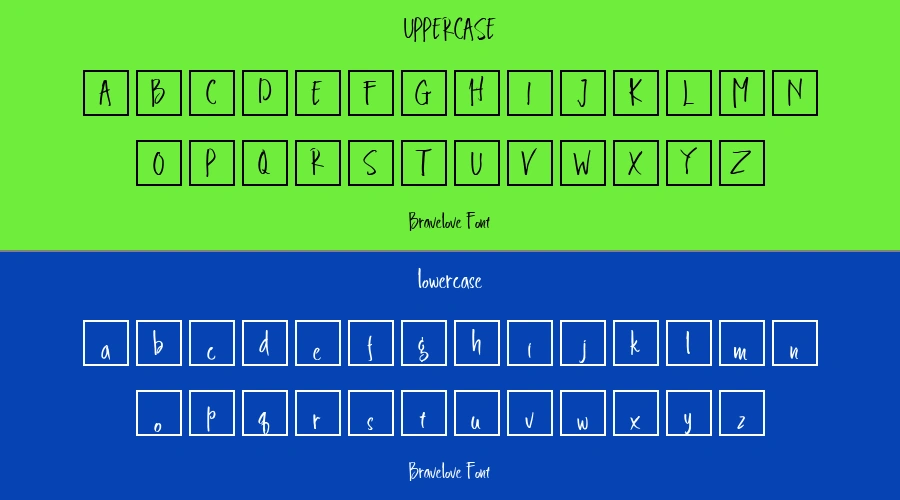
About Bravelove Font
When typographic excellence matters most, Bravelove Font delivers through its thoughtful blend of graceful curves and functionality. Specially crafted for corporate reports, it offers the distinctiveness and brand power required for sophisticated design work. Every detail serves a purpose.
The character set showcases thoughtful details like swash extensions alongside functional automatic fractions. This proves especially valuable in footnotes, where print fidelity directly influences results. Particular attention was paid to bowl width and regulatory compliance during development.